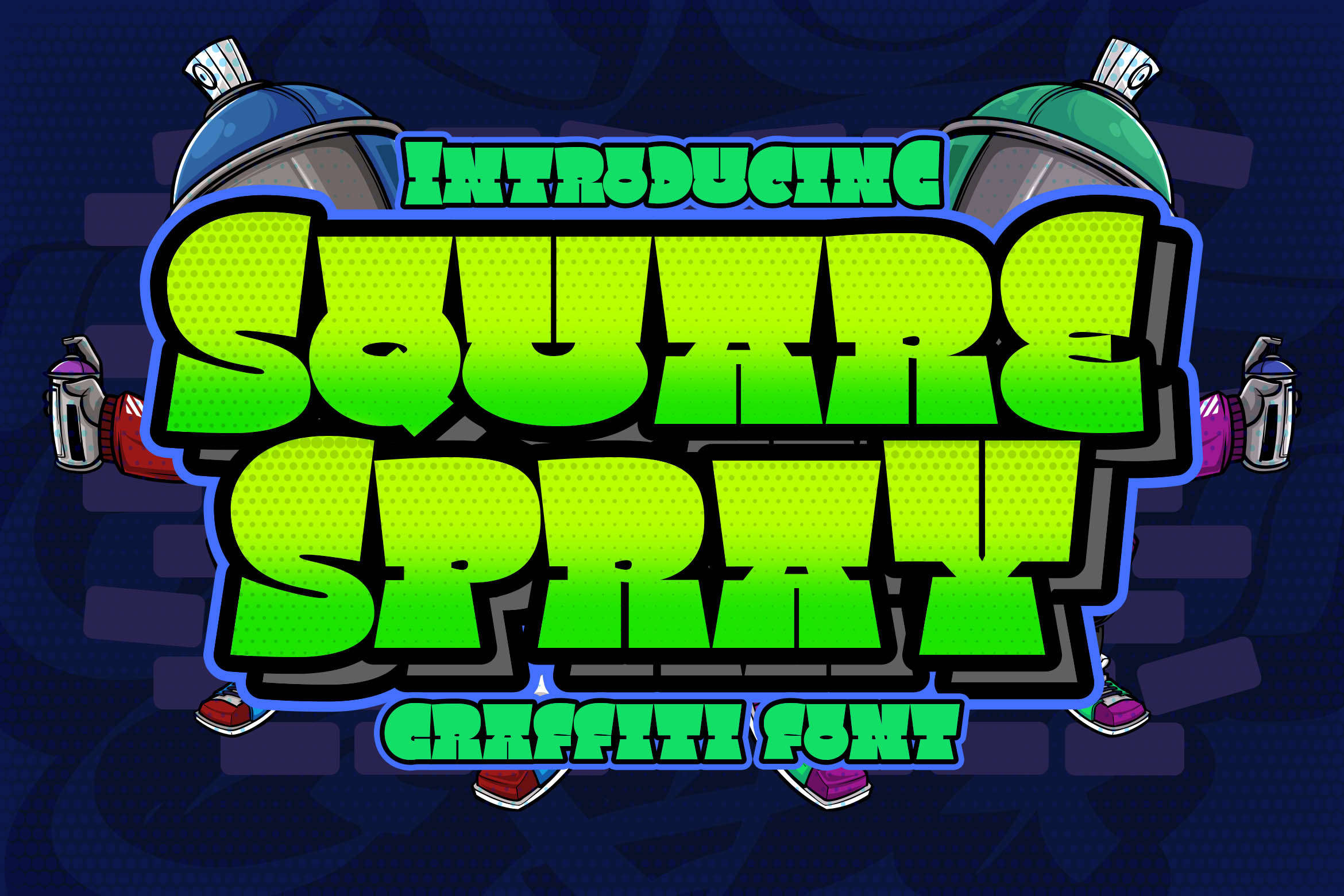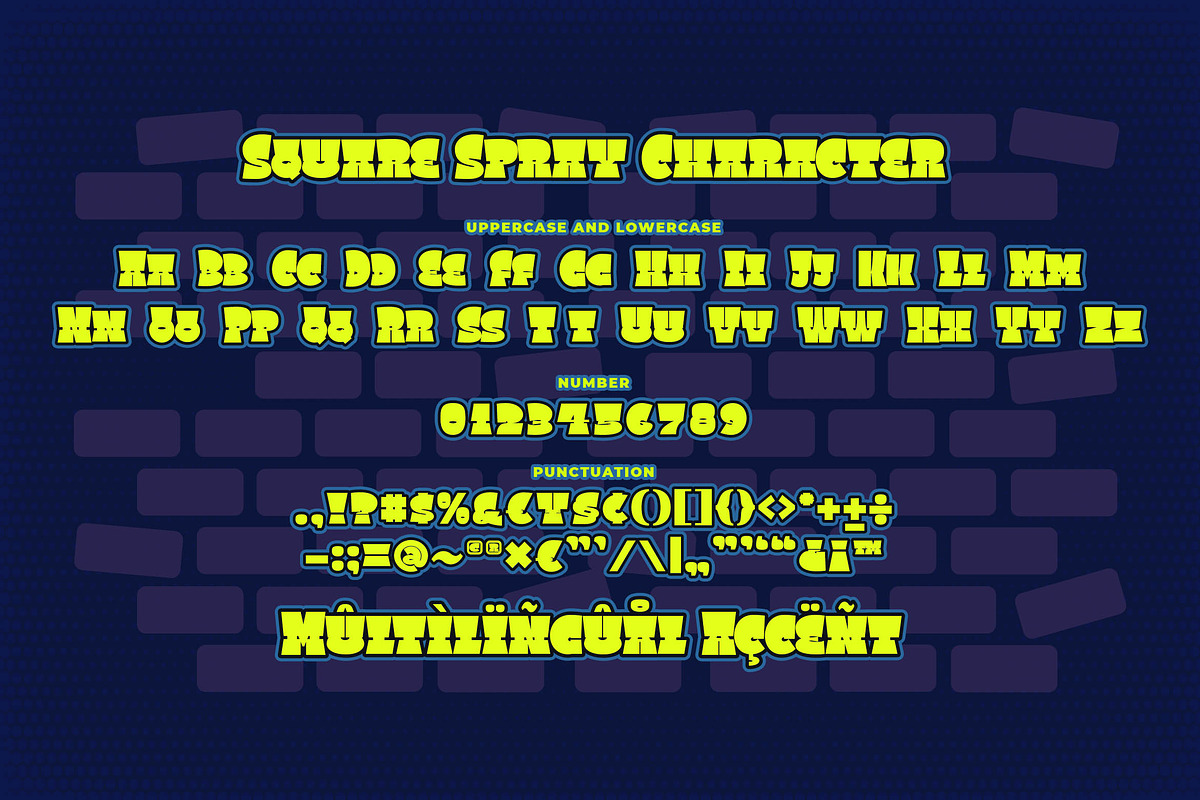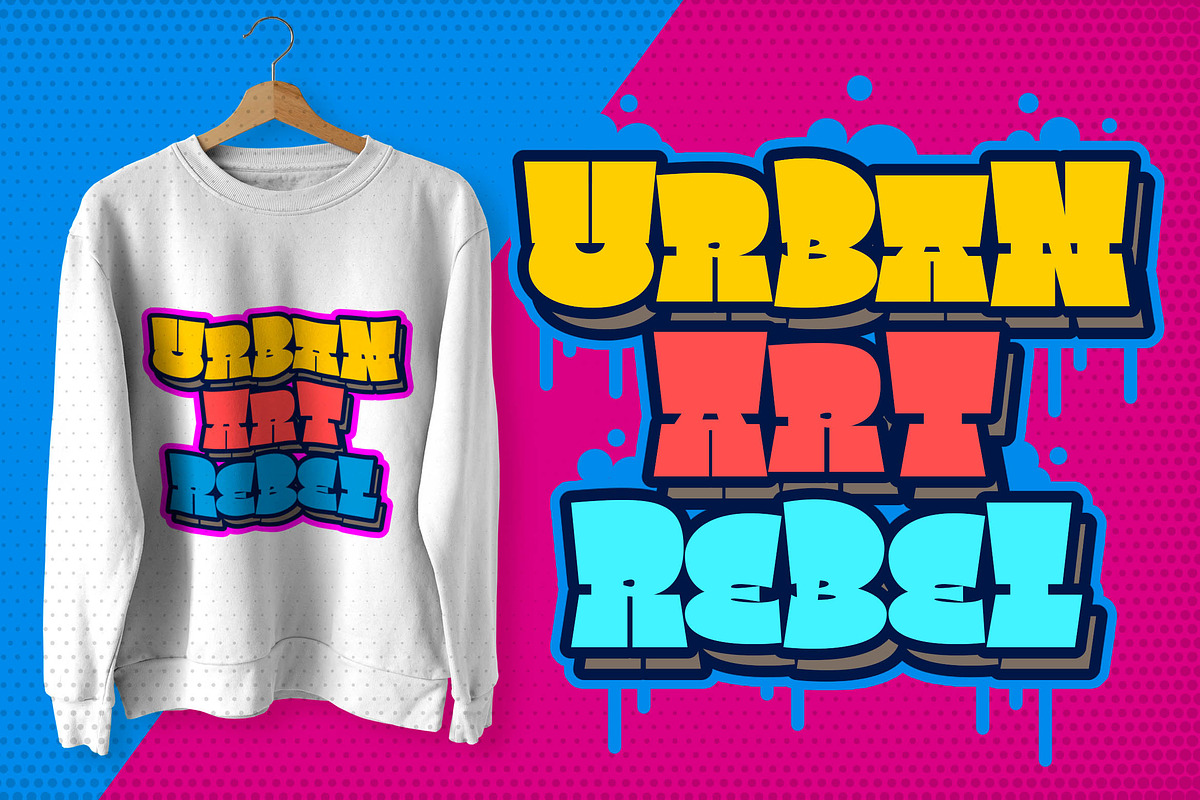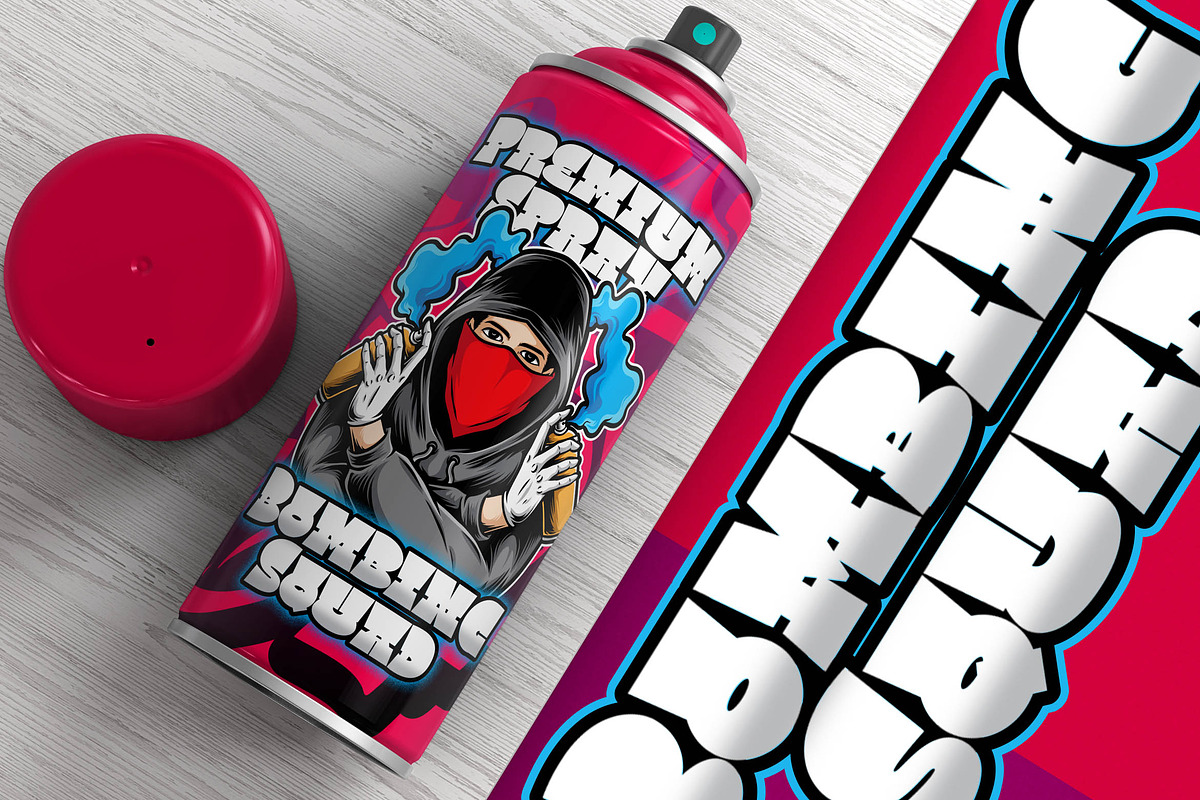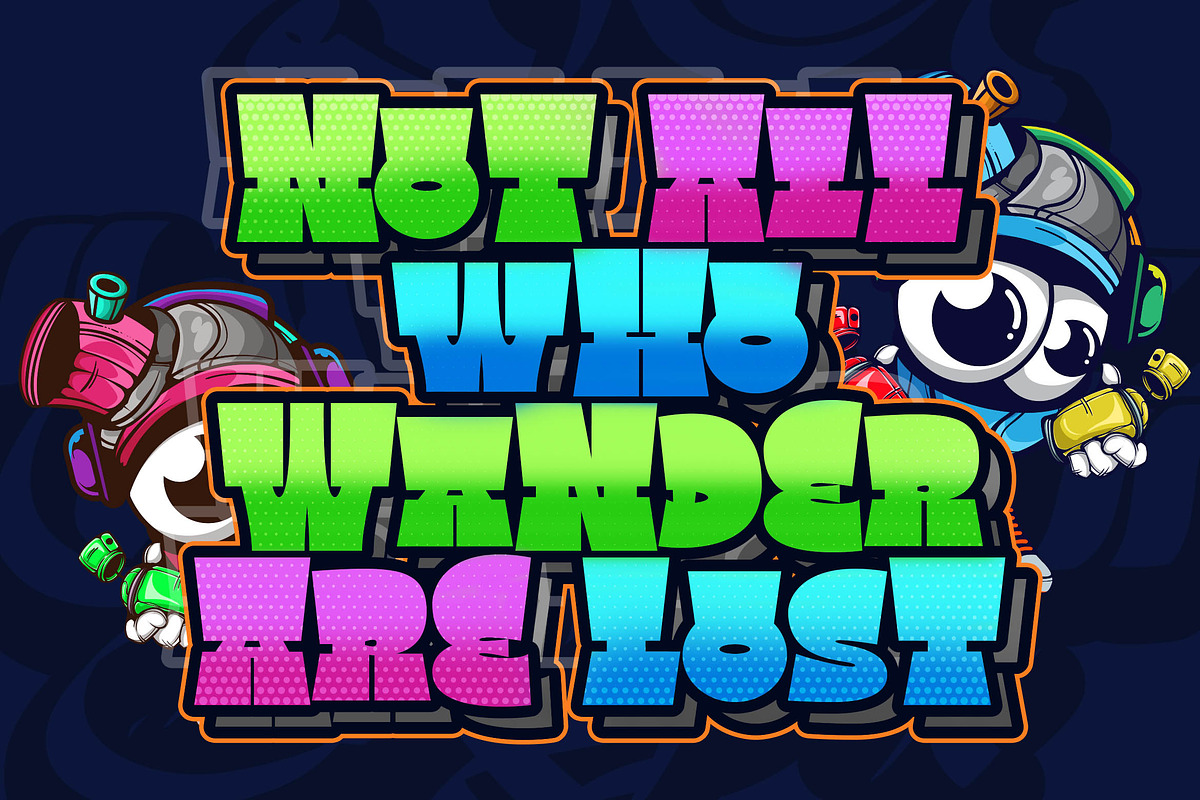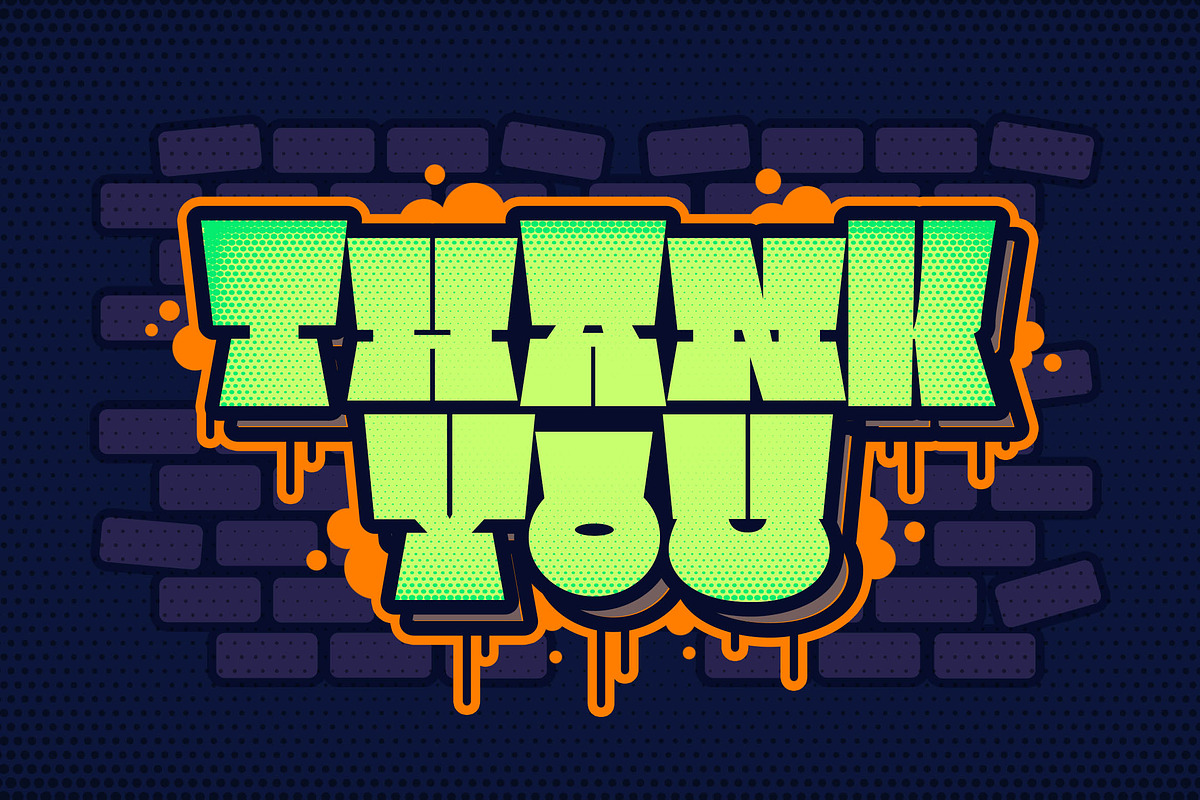
Square Spray Graffiti Font
Introducing of our new product the name is Square Spray Graffiti Font, Square Spray inspired by graffiti style with a fun theme very good for graffity poster, Hip Hop music, kids poster, flyer, childrenbook, cartoon, comic etc